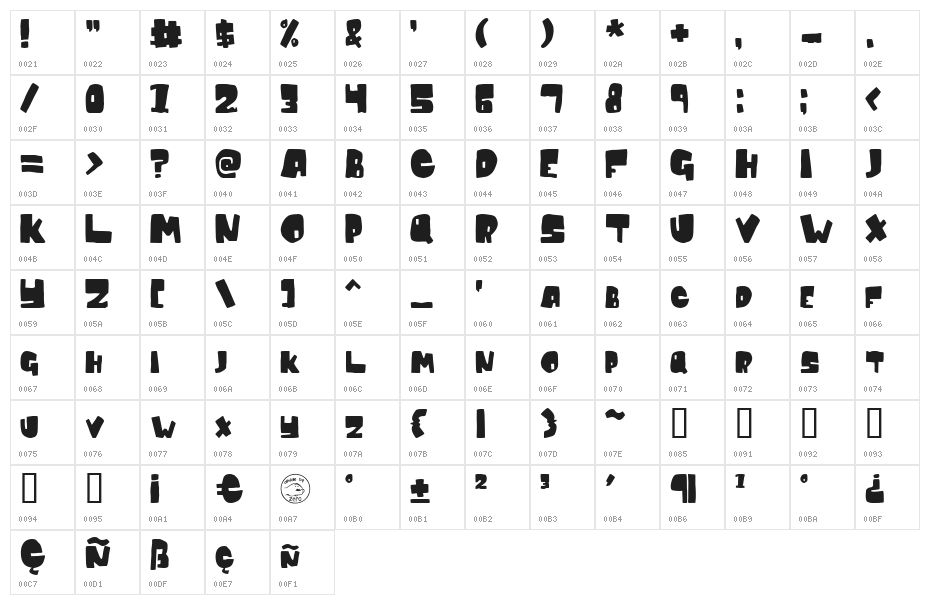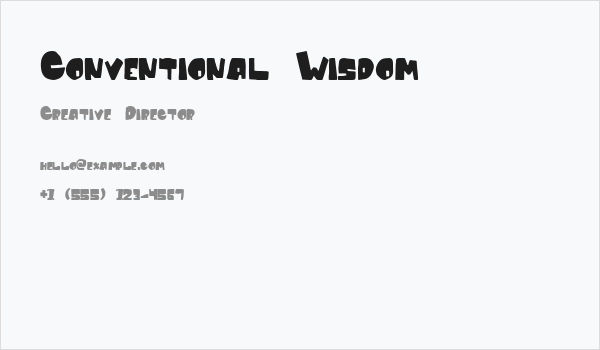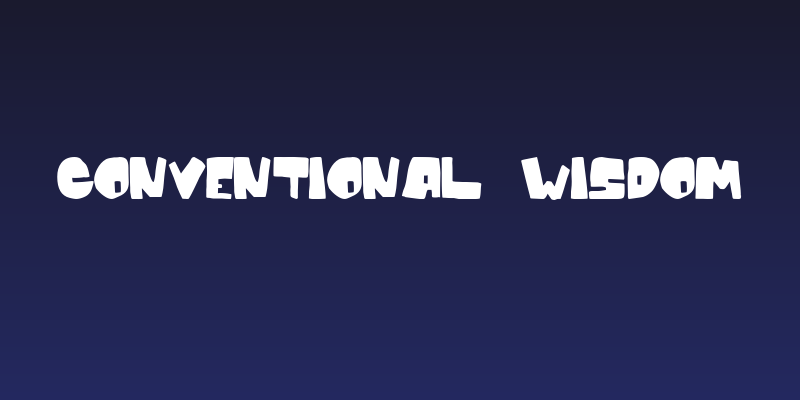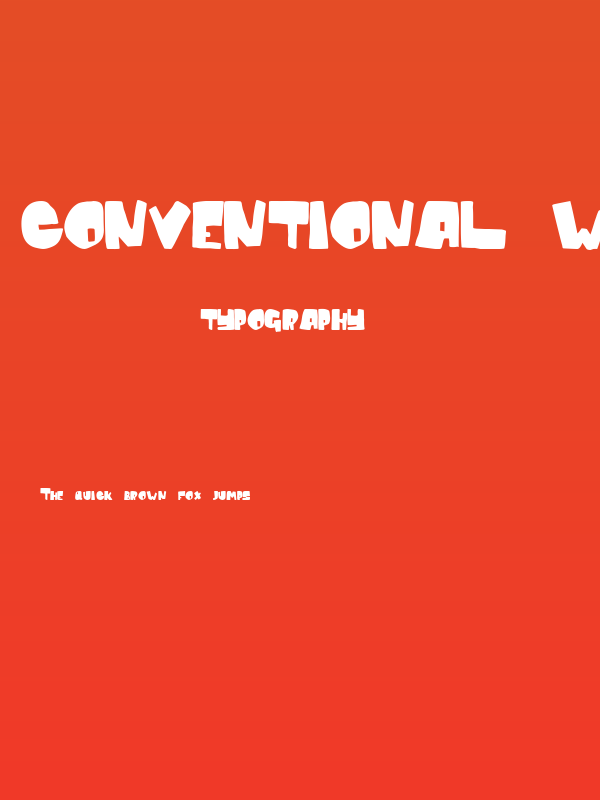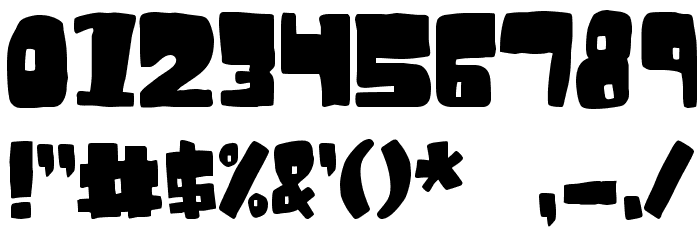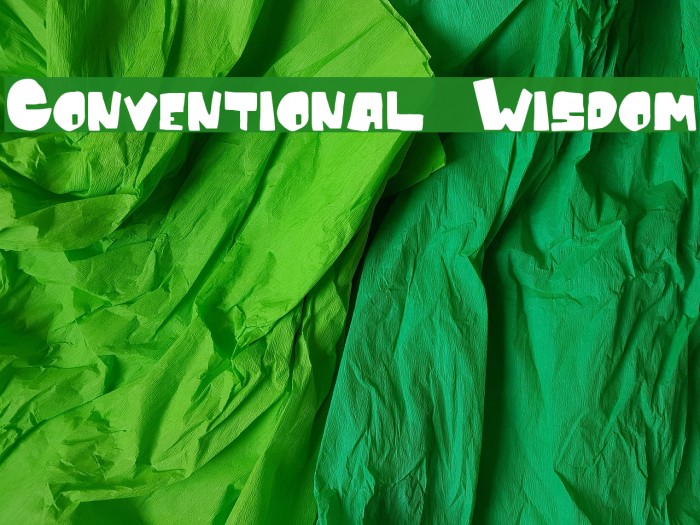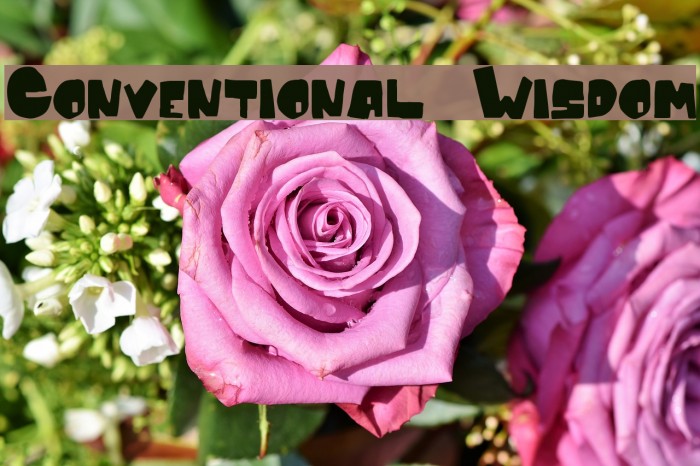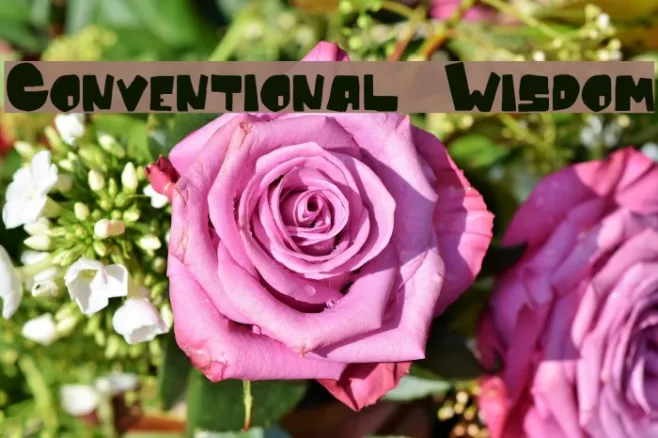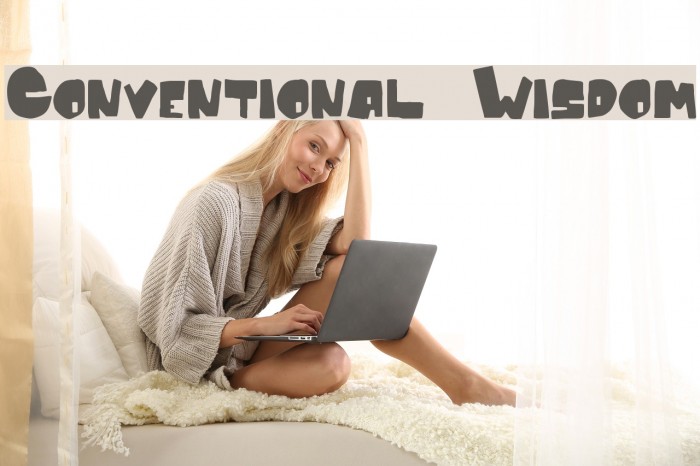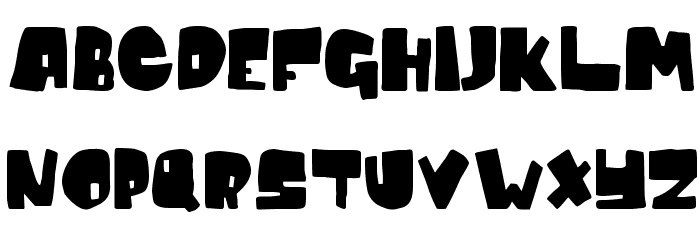
Conventional Wisdom Font
Conventional Wisdom Description
This font features bold, chunky characters with a playful and quirky style. The letters are heavily weighted, giving them a strong presence on the page. Each character has a unique, hand-drawn appearance, with irregular edges and varying stroke thicknesses that add to its whimsical charm. The font is highly legible despite its decorative nature, making it suitable for attention-grabbing headlines or creative projects. Its boldness and distinctive style make it stand out, perfect for designs that require a fun and dynamic look.
| Overall Style | Playful, Quirky |
| Proposed Projects | Ideal for children's books, posters, comic strips, and playful branding. |